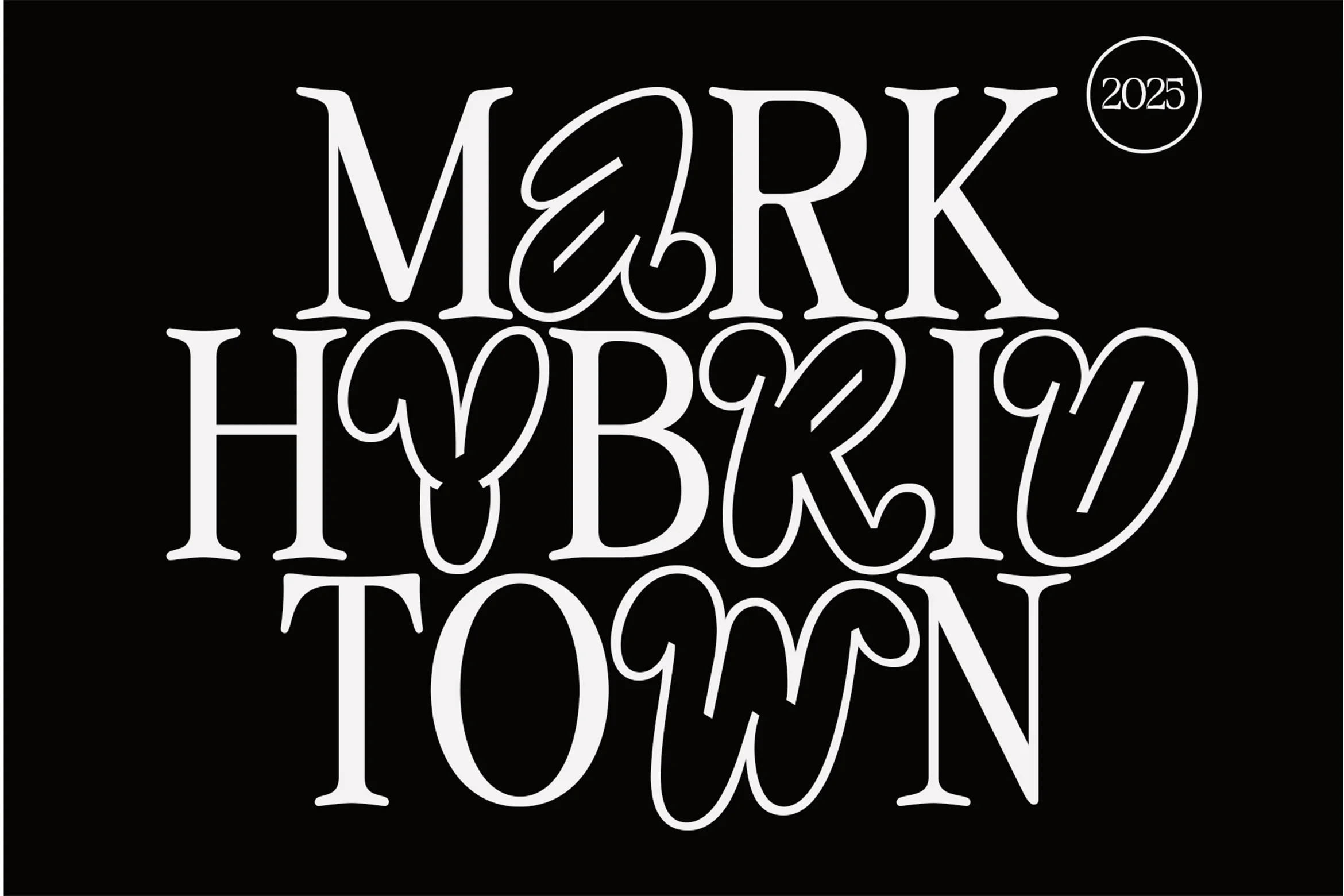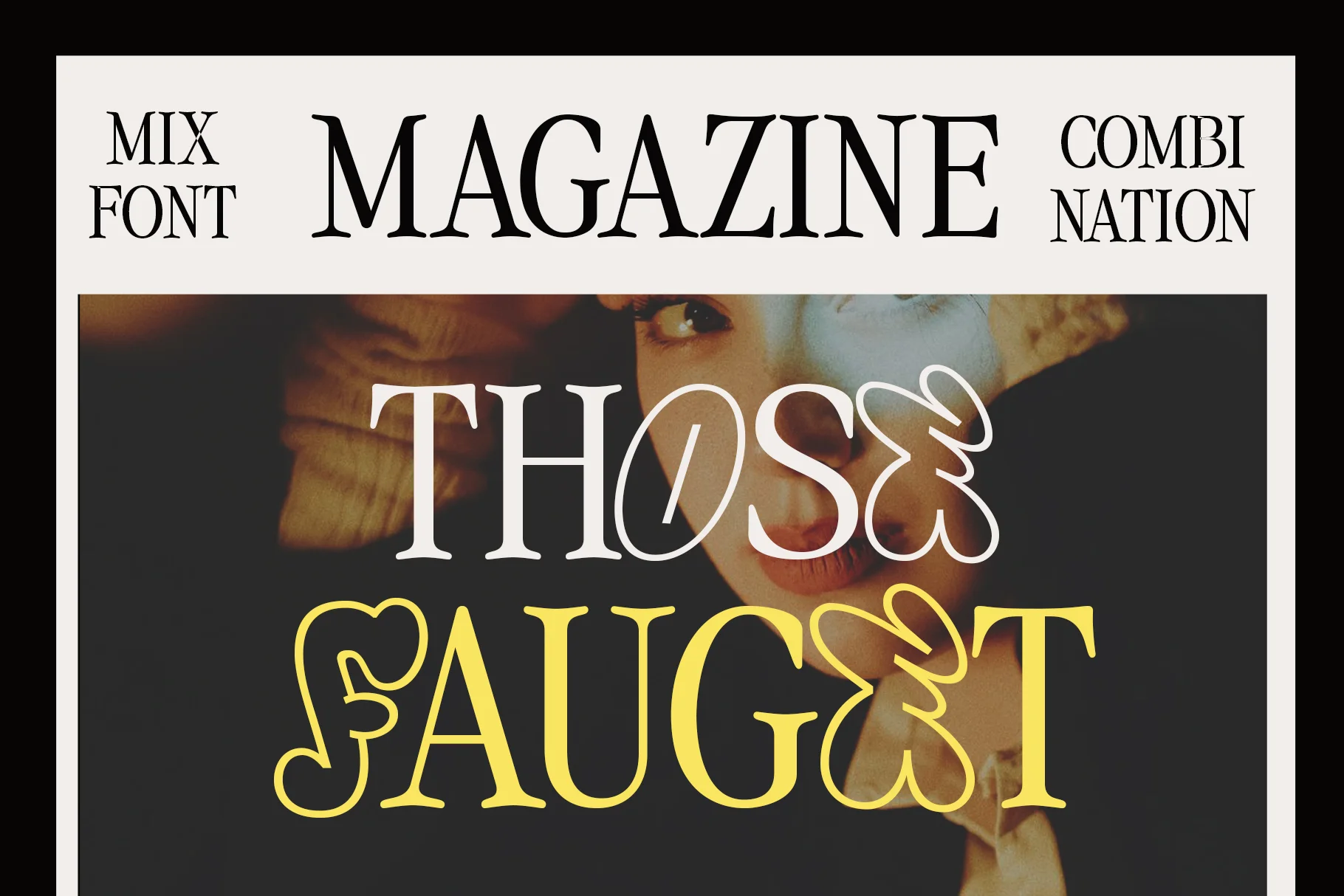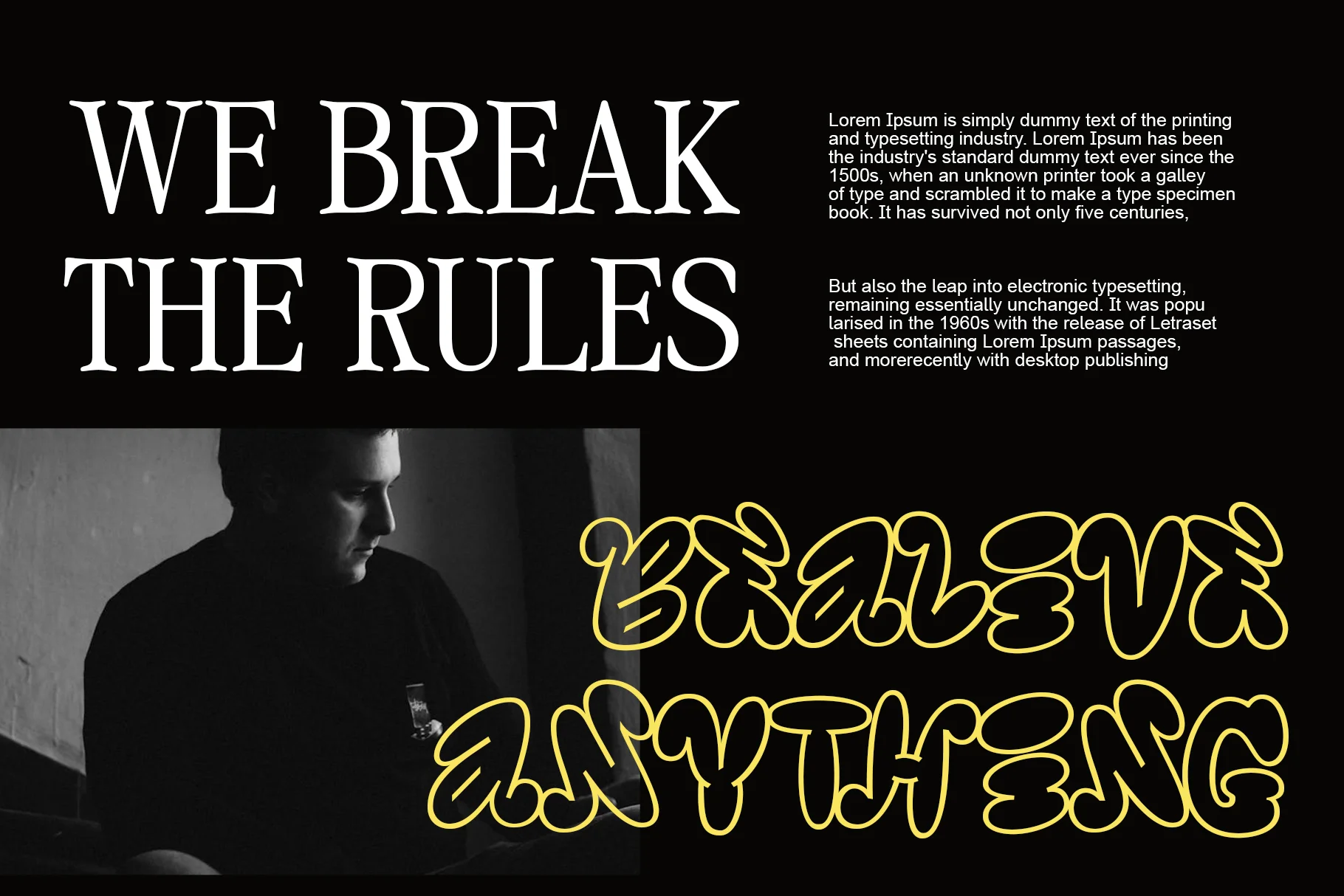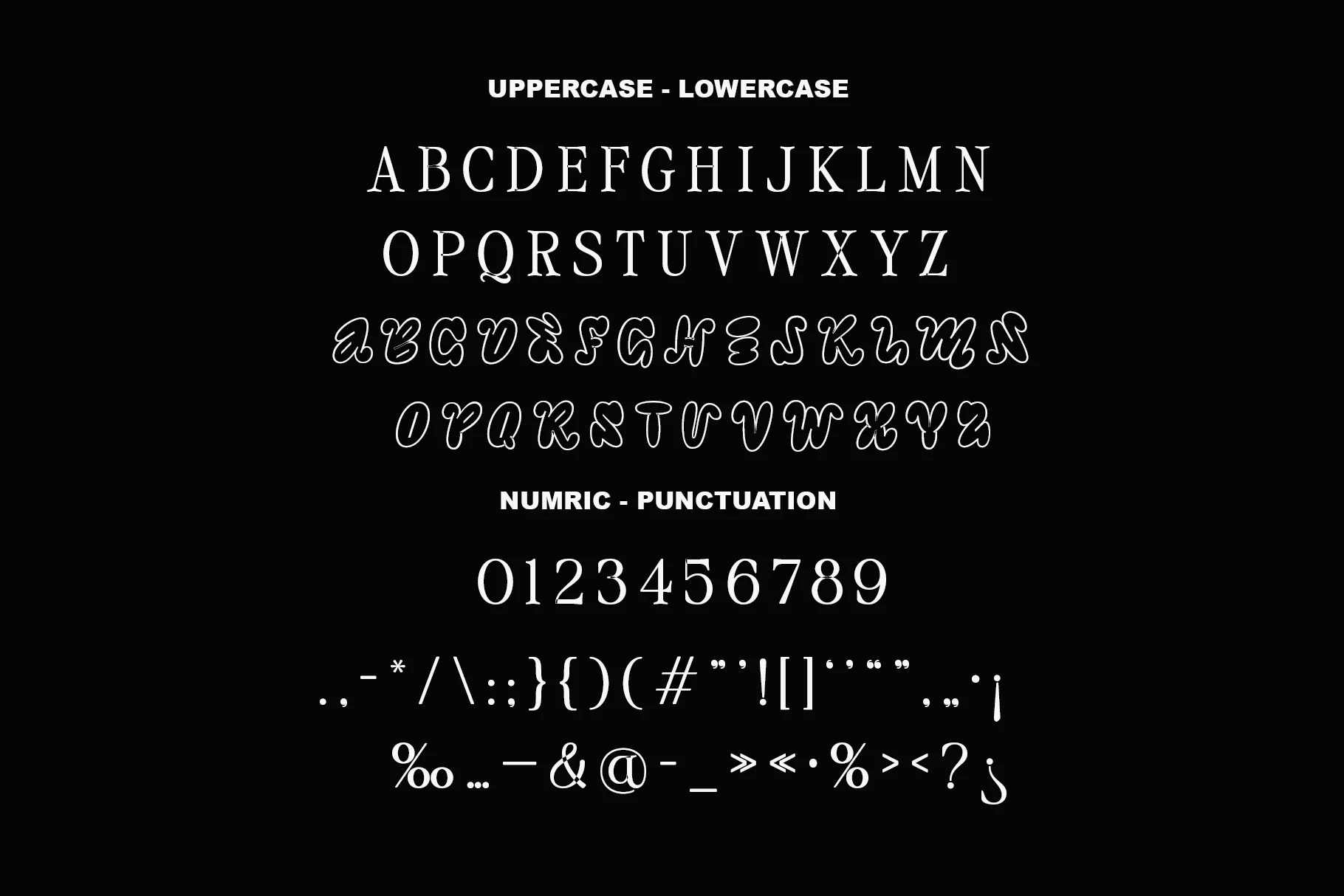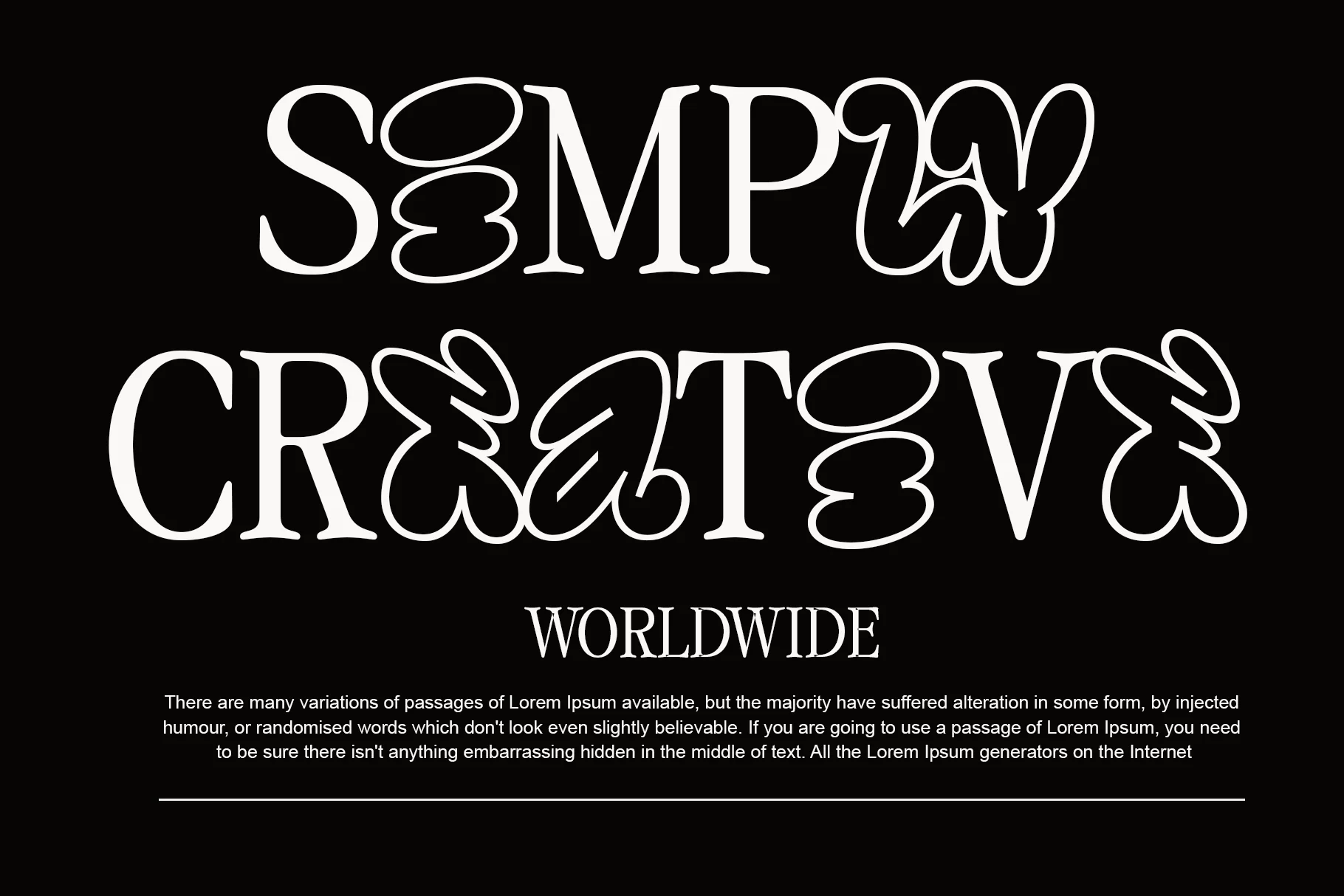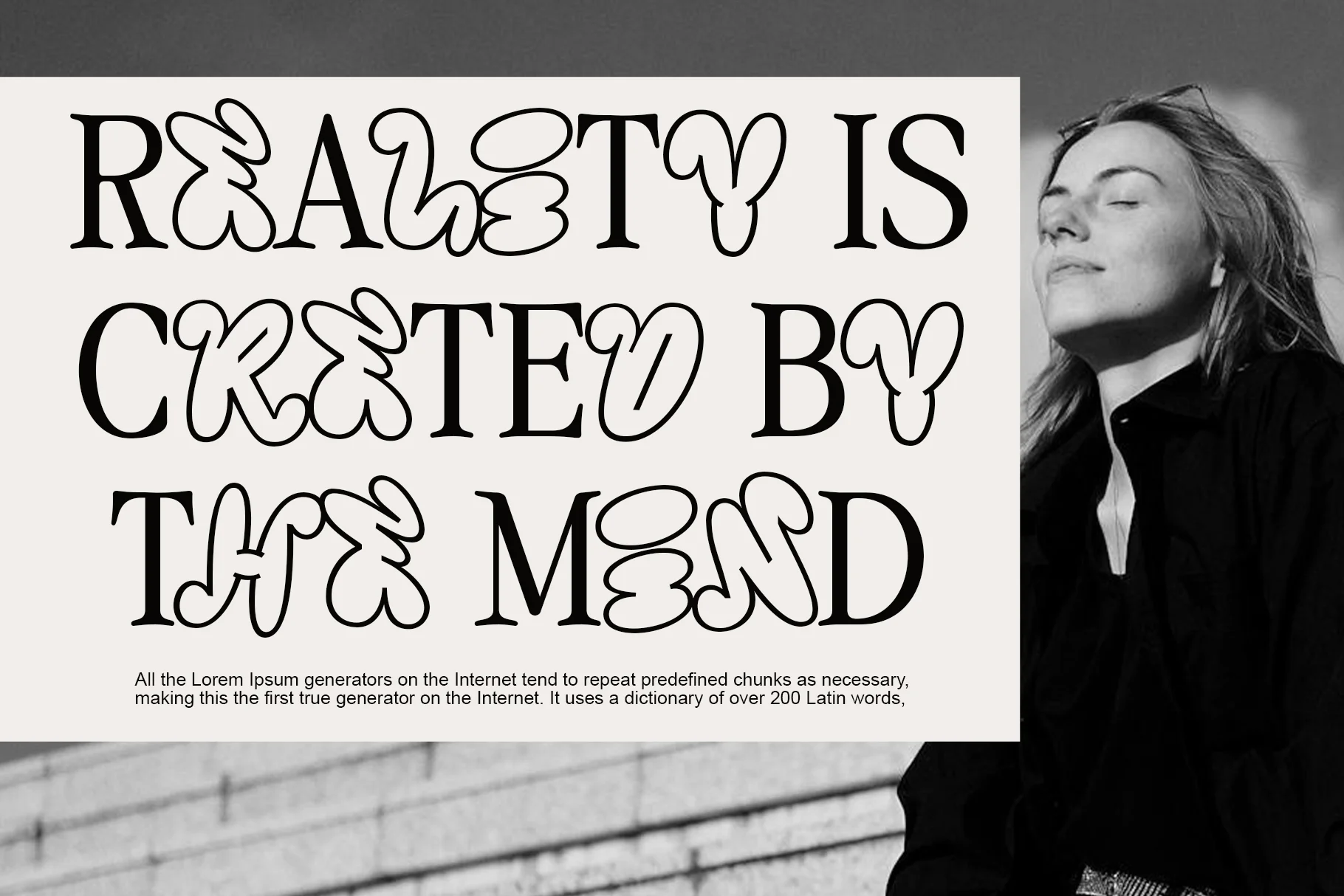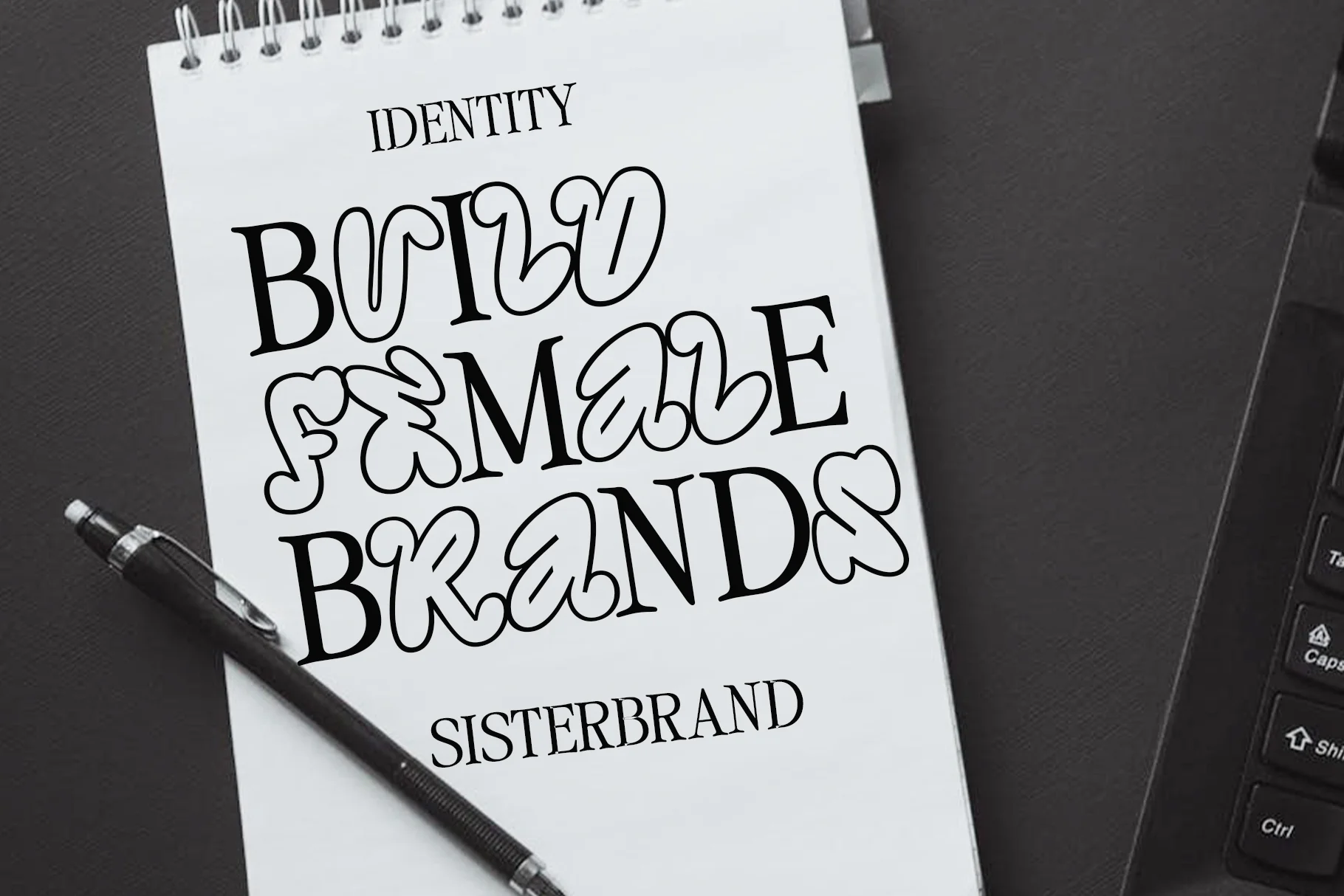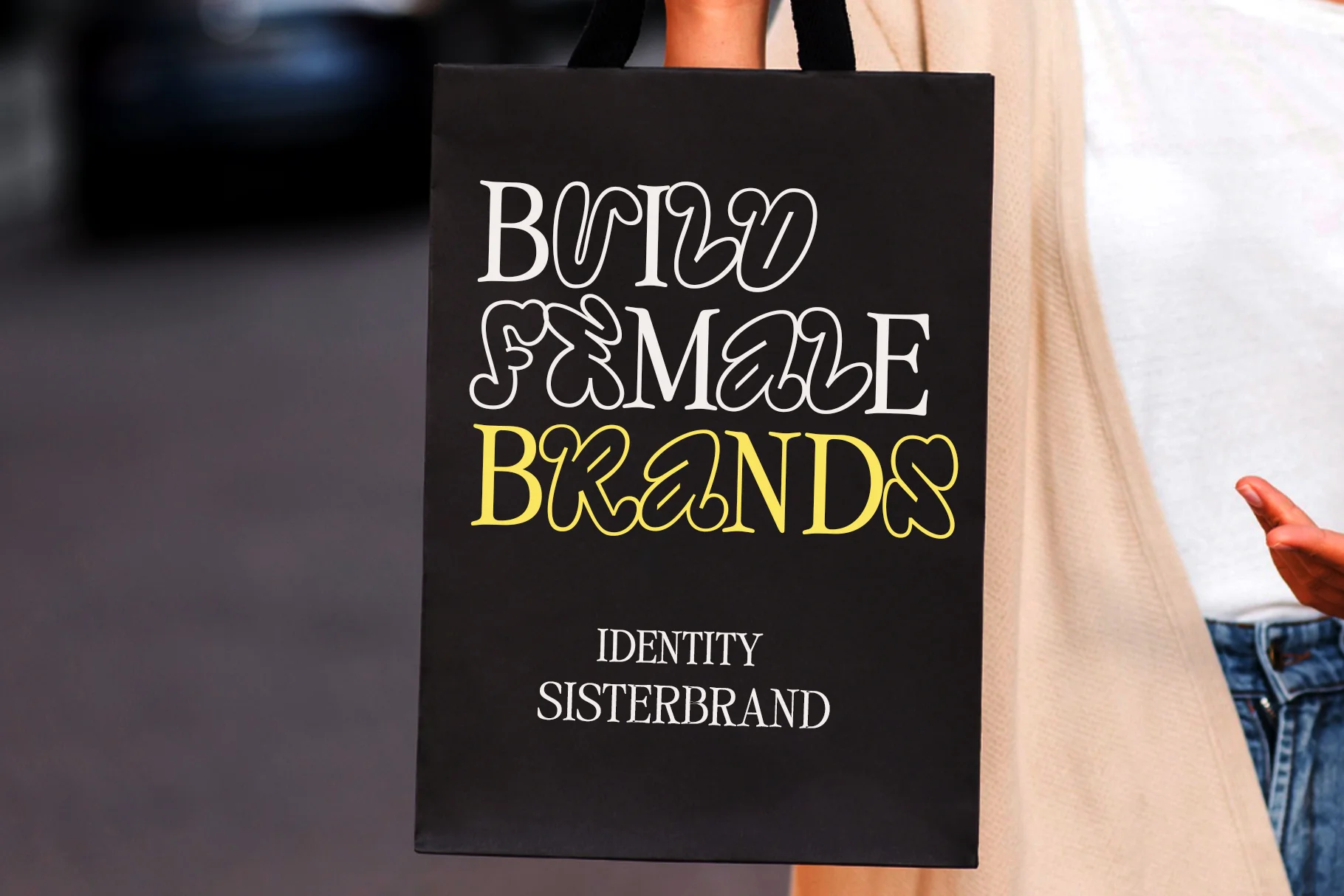
Mark Town
**Mark Town** features a hybrid typography style—combining two very contrasting font styles in one composition.
The impression displayed is elegant, firm, and formal. Giving a playful, modern, and experimental feel.
**Mark Town** is perfect for modern design projects, experimental branding, music posters, or art festivals that want to convey a message about diversity, transition, or the fusion of two different worlds.
Features:
* Uppercase and Lowercase
* Punctuation, Number, and Symbol
* Multilingual Support
* Opentype Features